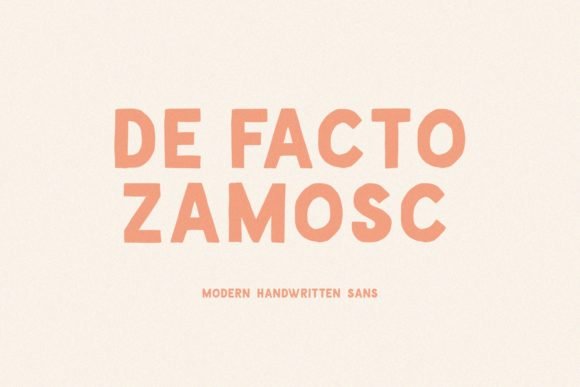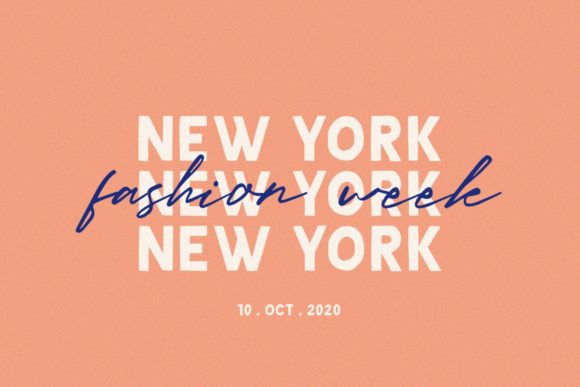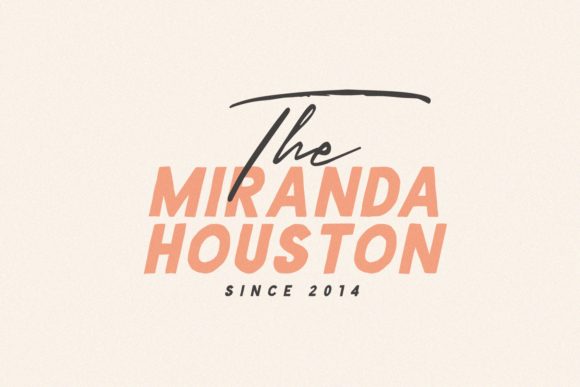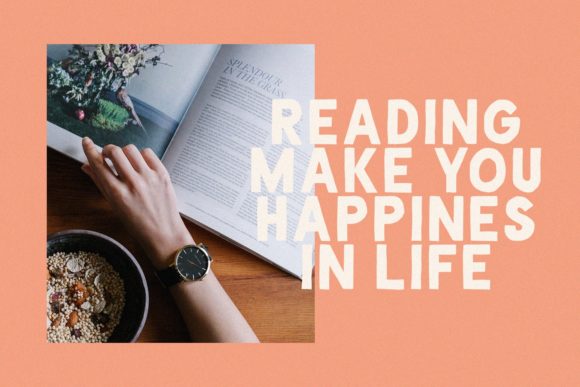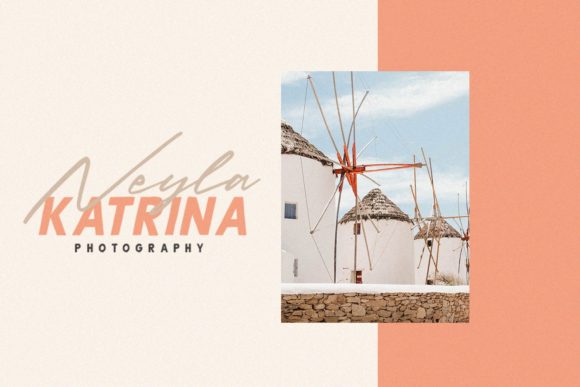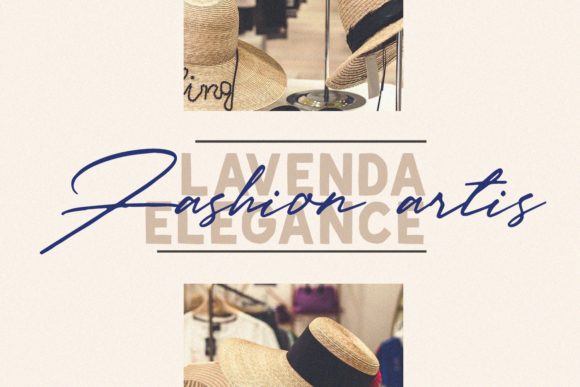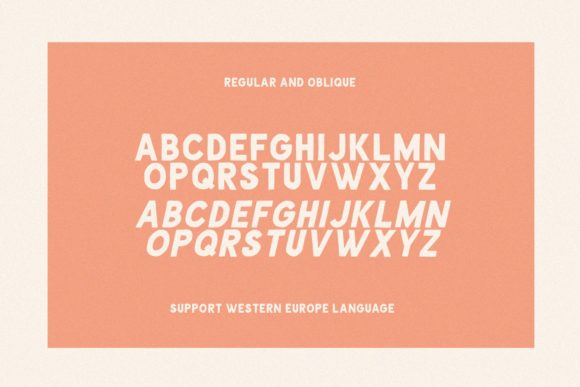
Discover the Playful Charm of De Facto Zamosc Font
Have you ever found yourself doodling in a notebook, trying to capture the perfect font for a project? That’s exactly what happened to the talented designer behind the De Facto Zamosc Font. This beautiful sans serif typeface was crafted by hand, and its unique character is sure to capture your heart.
De Facto Zamosc Font is more than just a pretty face – it’s a versatile tool for designers looking to add a touch of whimsy to their work. With its playful feel and modern aesthetic, this font is perfect for branding, typography, and any project that needs a little extra personality.
Whether you’re a seasoned pro or a design newbie, De Facto Zamosc Font is a valuable addition to your toolkit. Its handmade charm and unique character make it a standout choice for designers looking to add some flair to their work.
De Facto Zamosc Font Key Features
- Font Family: De Facto Zamosc
- Unique Characteristics: De Facto Zamosc is a sans-serif font with a unique blend of modern and historical elements, featuring clean lines, geometric shapes, and a distinctive x-height.
- Language Support: Supports multiple languages, including Latin, Cyrillic, and Greek scripts
De Facto Zamosc Font Review
Overall, I’m quite impressed with the De Facto Zamosc Font. Here are some of the things that stand out: ✨
- Unique character set – The font has a distinct, historical feel to it, making it perfect for projects that require a vintage or antique aesthetic.
- Good legibility – The font is easy to read, even at smaller font sizes, which is a must for any font.
- Support for multiple languages – This font is suitable for projects that require text in multiple languages.
- Limited font weight options – The font only comes in a few weights, which may limit its usability in certain projects.
- No italics or bold versions – If you need to use italics or bold text in your project, you may need to use a different font.
- No matching font family – The font does not have a matching font family, which can make it difficult to create a consistent visual style.
Overall, I think the De Facto Zamosc Font is a solid choice for projects that require a unique, historical aesthetic. While it may have some limitations, its strengths make it a great option for designers who want to add some character to their work.
Tips for Getting the Most Out of De Facto Zamosc Font
1. Experiment with different font sizes and styles to achieve the desired effect.
2. Use De Facto Zamosc font in combination with other fonts to create a unique and visually appealing design.
3. Apply the font to headings and titles to add emphasis and create a clear hierarchy of information.
Common Use Cases for De Facto Zamosc Font
1. Designing modern and minimalist logos.
2. Creating elegant and sophisticated business cards.
Alternatives to De Facto Zamosc Font
Playfair Display is a luxurious, elegant script font that is ideal for use in high-end branding, luxury goods, and fashion design. It features intricate details and refined flourishes that evoke a sense of sophistication and refinement.
Compared to De Facto Zamosc Font, Playfair Display has a more ornate and classical feel, making it better suited for formal or upscale projects. De Facto Zamosc Font, on the other hand, has a more modern and minimalist aesthetic.
Merriweather is a classic serif font that is designed for use in body text and headings. It features a traditional, elegant feel that is reminiscent of 19th-century printing. Merriweather is ideal for use in editorial design, books, and other projects where a timeless, classic look is desired.
The recommended font size range for De Facto Zamosc is between 10pt and 24pt. However, this font family is highly versatile and can be used effectively at a wide range of font sizes, from small captions to large headlines.